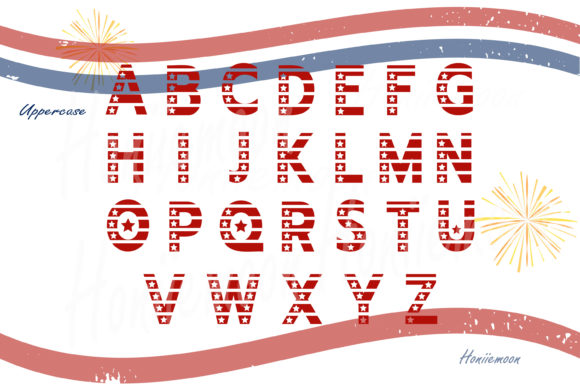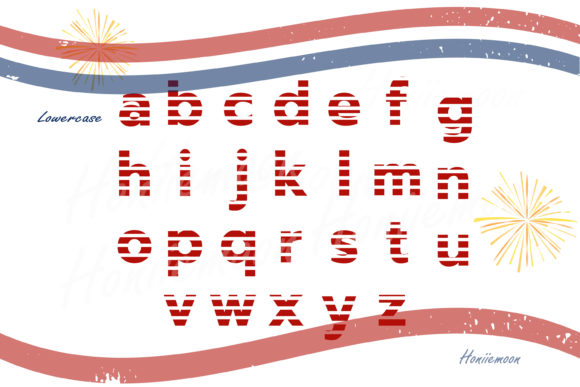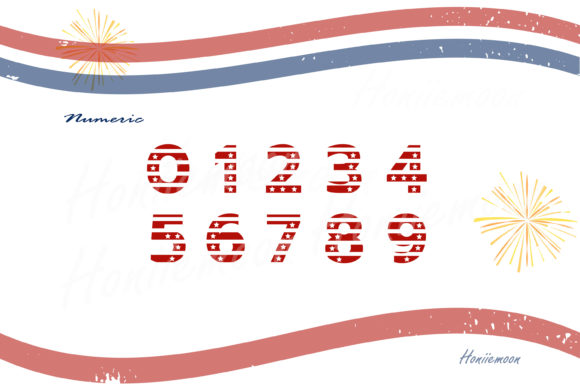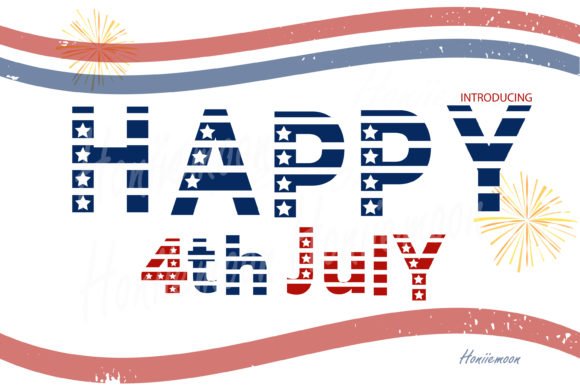
Introduction to Happy 4th July Font
Happy 4th July is a cool and fun display font.
It looks both cute and jolly and it will enhance each of your designs The only limit is your imagination.